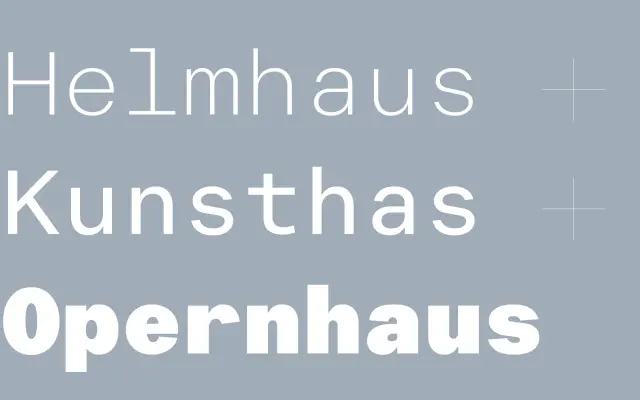
F37 Blanka Mono
F37 Blanka Mono specimen from F37 Foundry
The monospaced companion to F37 Blanka, drawn across sixteen styles with Cyrillic and Greek extensions.
A monospaced sans from F37 Foundry drawn as the companion to F37 Blanka, holding the family's clean Swiss neo-grotesque character on a fixed-width grid. Sixteen Latin styles run across eight weights with matching italics, with Cyrillic and Greek companions extending the reach. F37 pair it with F37 Britain Typewriter, F37 Britain Slab and F37 Hooj, suiting code samples, technical documentation, product UI and brand systems that want a calm, modernist monospace with a Swiss accent.
F37 present Blanka Mono as the monospaced companion to F37 Blanka, drawn in the same Swiss neo-grotesque idiom and tied to the International Typographic Style.